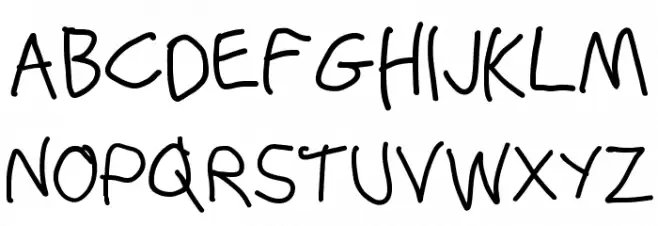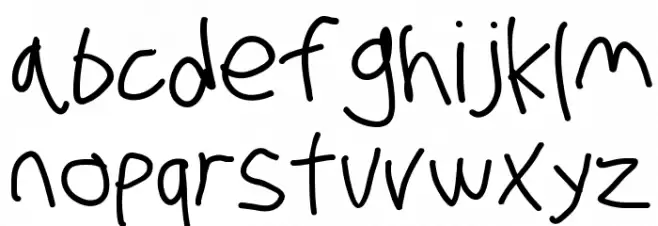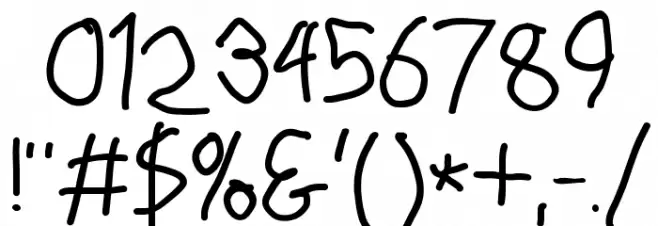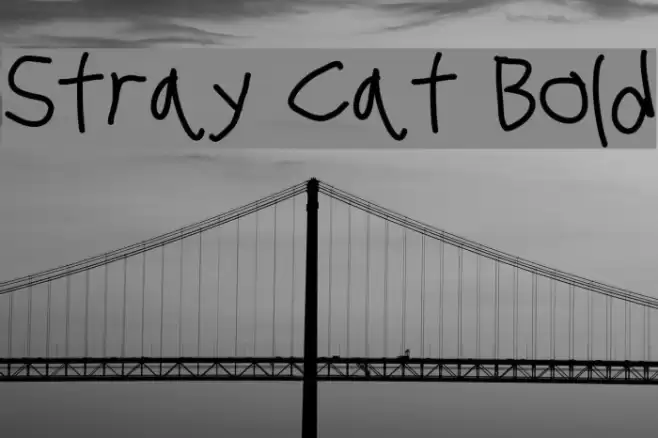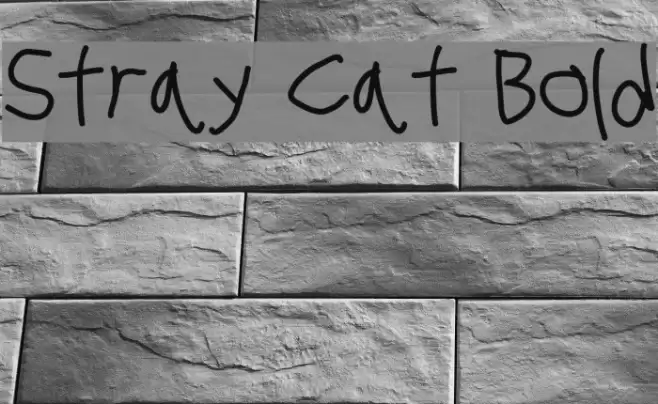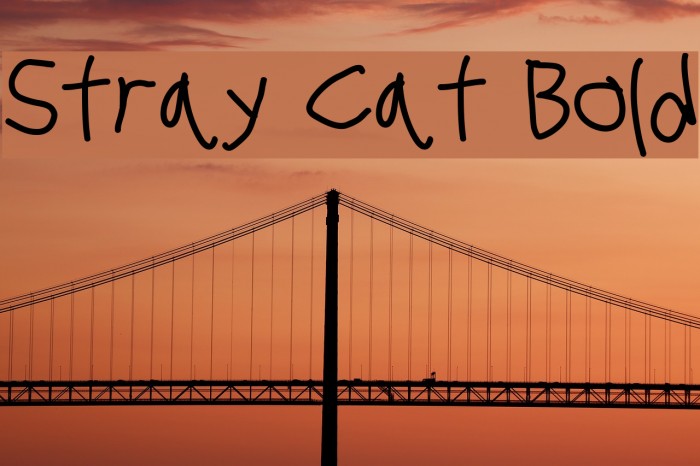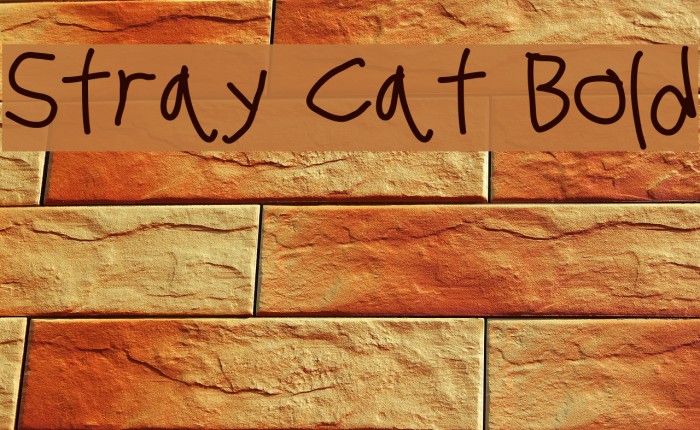
Stray Cat Bold
This font exudes a playful and casual handwritten style, characterized by its irregular and organic letterforms. The strokes are uneven, giving it a lively and spontaneous appearance. The letters are slightly tilted, adding to the informal and relaxed vibe. The overall look is reminiscent of a quick, personal note or doodle, making it ideal for projects that require a touch of personality and warmth. The font maintains consistency in its quirky style across both uppercase and lowercase letters, as well as numbers and special characters.
A playful, handwritten font with irregular, organic strokes.
- Proposed Projects: Ideal for greeting cards, children's books, casual invitations, and personal branding.
- Overall Style: Casual
- Use Case: Headlines, Informal text, Personal notes